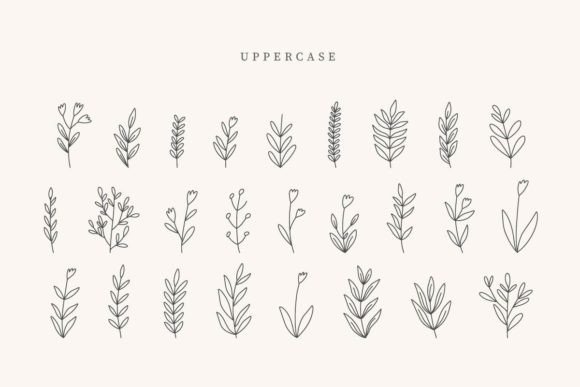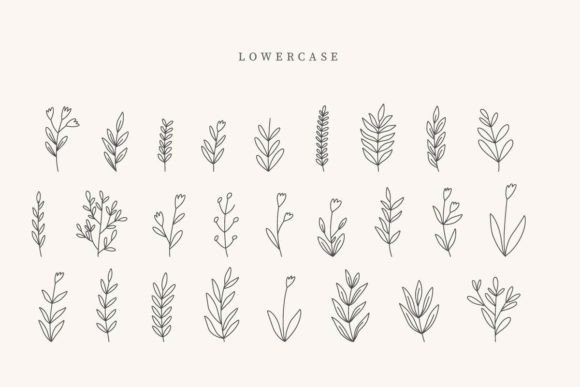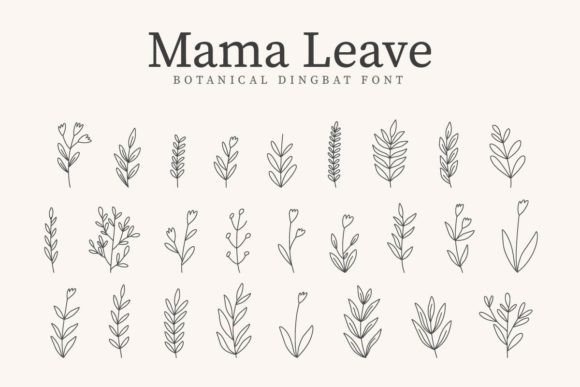
Introduction to Mama Leave Font
Mama Leavena is a fun and creative dingbat font featuring various leaf designs.
Each character in this font is a unique leaf shape, perfect for adding a natural touch to your projects It’s easy to use and great for creating nature-themed decorations, logos, and art.